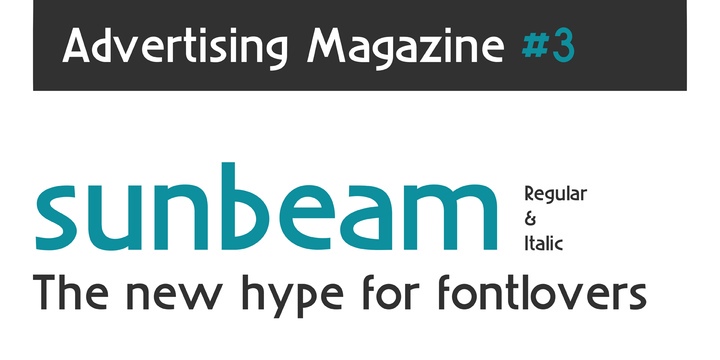
Sunbeam Font
Sunbeam Font is perfect for wellness center branding, organic food packaging, natural skincare product labels, yoga studio signage, eco-friendly company logos, summer festival posters, children's outdoor camps, positive lifestyle blogs, renewable energy campaigns, and mindfulness app interfaces. This uplifting typeface excels in applications where optimism, natural harmony, and positive energy are essential brand characteristics.
What makes Sunbeam Font exciting is its radiant character design that perfectly captures the warmth and life-giving energy of sunshine through gentle curves and optimistic letterform proportions. The font features soft, rounded edges with subtle organic flow that creates an immediately welcoming and cheerful atmosphere. Its bright personality and positive energy make it ideal for brands that want to inspire happiness, promote wellness, and create emotional connections with audiences seeking joy, health, and natural living experiences.
The Sunbeam Font family typically includes Regular and Bold weights, often accompanied by light and medium variations that provide flexibility for different design applications. Many versions feature alternate characters with enhanced organic details, decorative ligatures that flow naturally, and complementary symbols including sun rays, leaves, and nature-inspired ornamental elements. Some collections include outline variations and shadow effects that amplify the sunny, uplifting aesthetic for display applications.
Whether you're developing brand identities for health and wellness businesses, creating promotional materials for outdoor activities, or designing content that celebrates positive living and environmental consciousness, Sunbeam Font Free Download offers the authentic sunshine character that resonates with audiences seeking happiness and natural harmony. Its warm personality makes it perfect for brands focused on improving people's lives through healthy, sustainable choices. The font's ability to convey both joy and trustworthiness makes it particularly valuable for healthcare providers, educational institutions, and lifestyle brands seeking to inspire positive change while building genuine connections with customers who value wellness, sustainability, and authentic happiness in their daily lives.